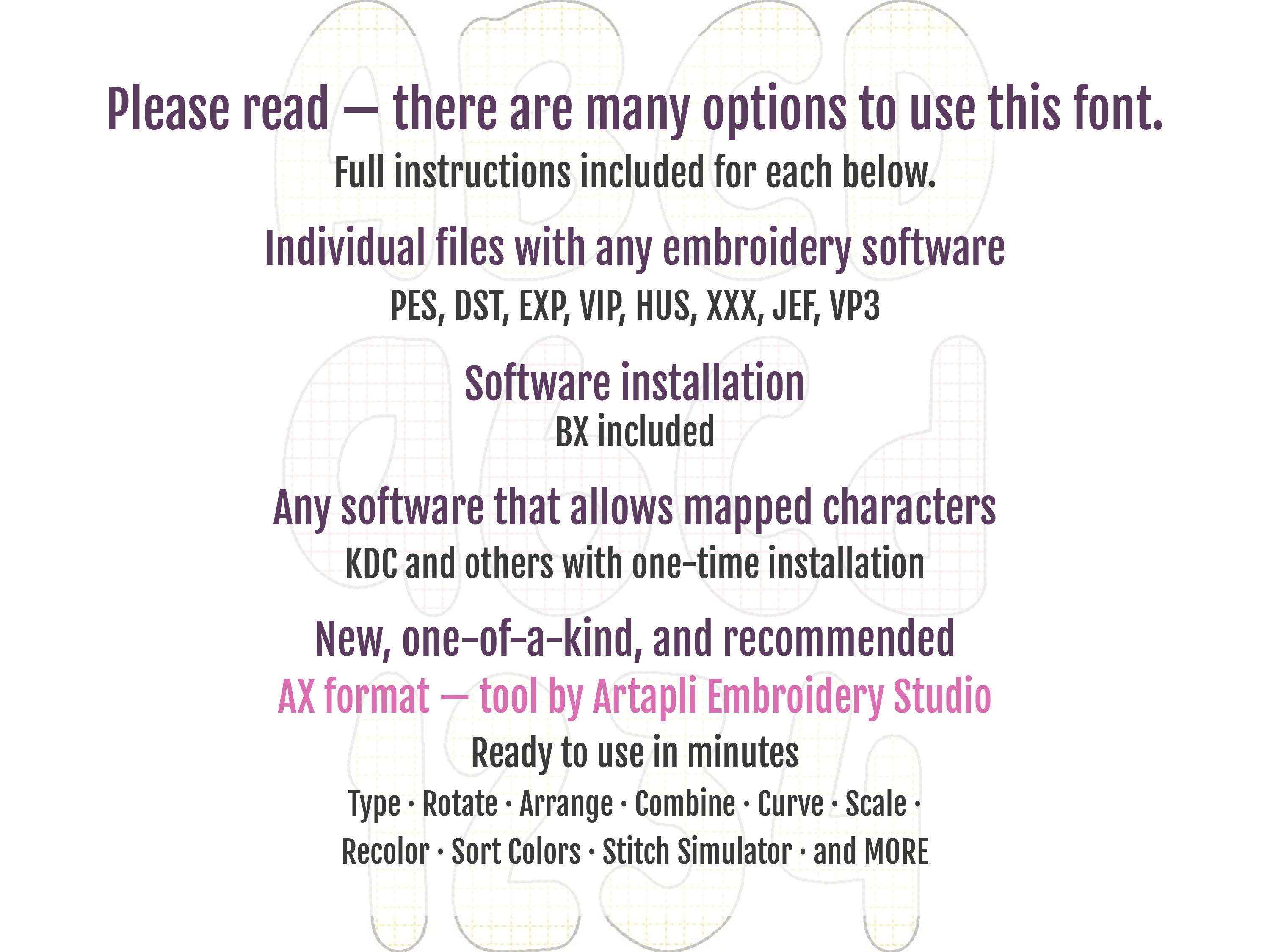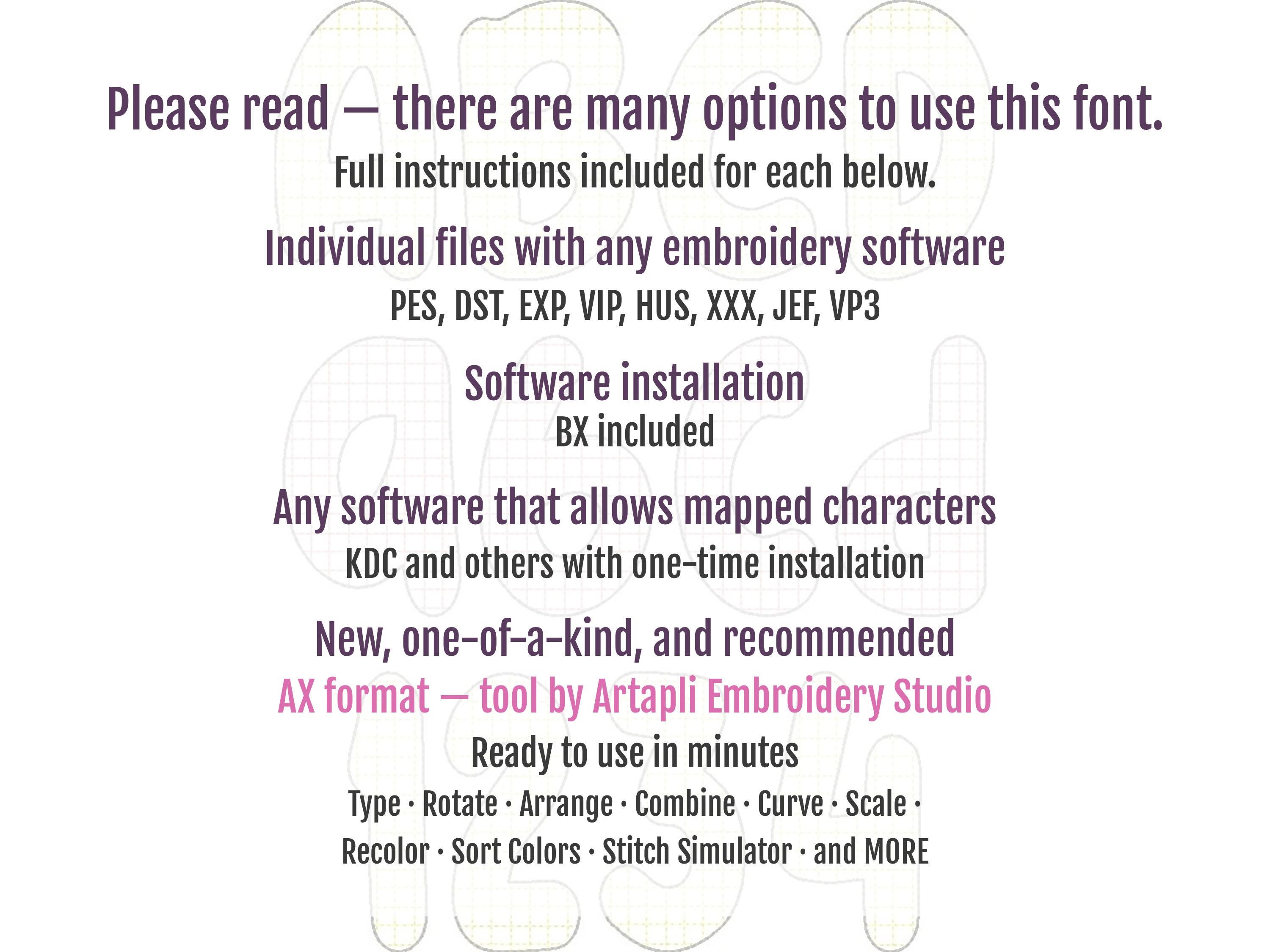
Quick Sketch Stitch Plaid FONT squared print one height alphabet machine embroidery designs, playful kids letters and numbers, BX included
Whole alphabet uppercase and lowercase letters, numbers and punctuation & . , - ? / !
This font is a quick stitch and it has a low density/light and bean stitch outline, it looks best on light color fabrics.
The background fabric looks through. Stunning effect!
May also be used as a raggedy edge applique. Just stitch and trim excess fabric.